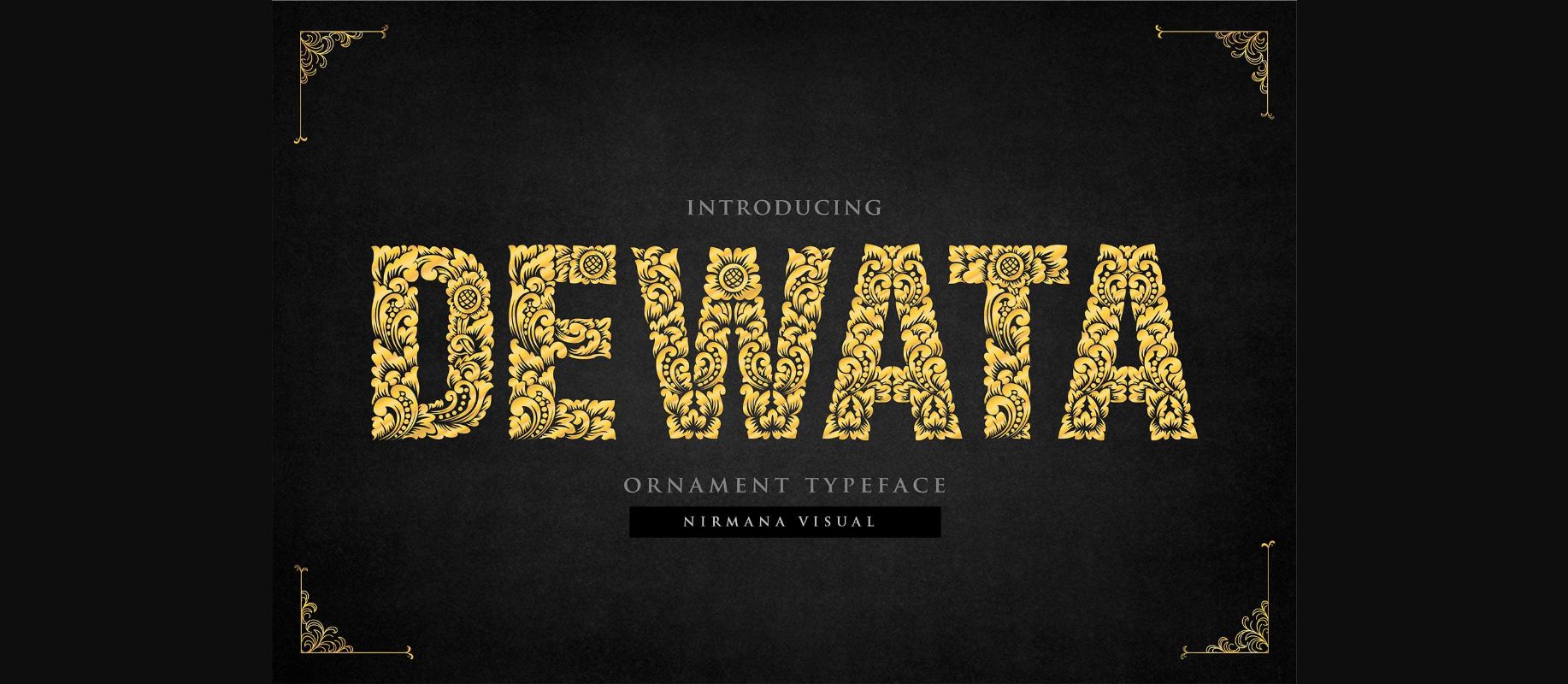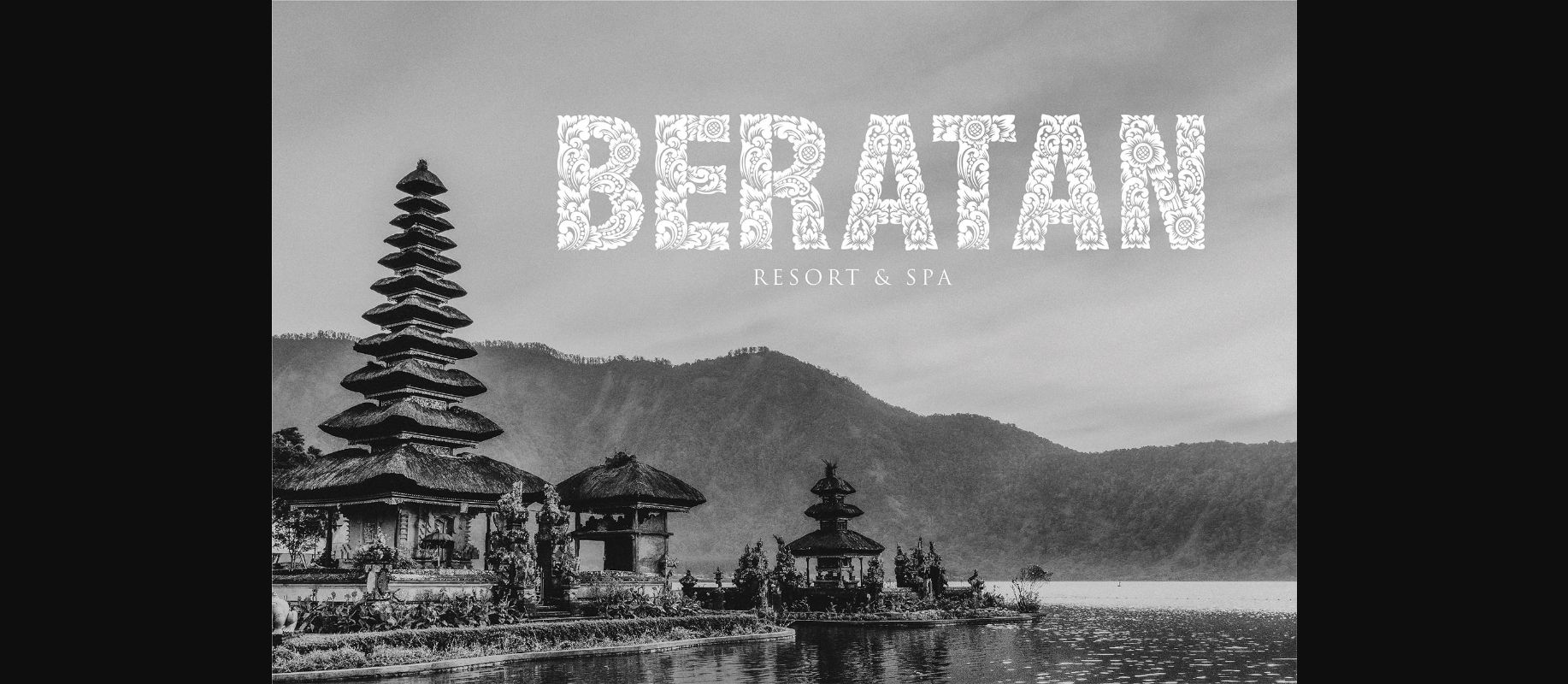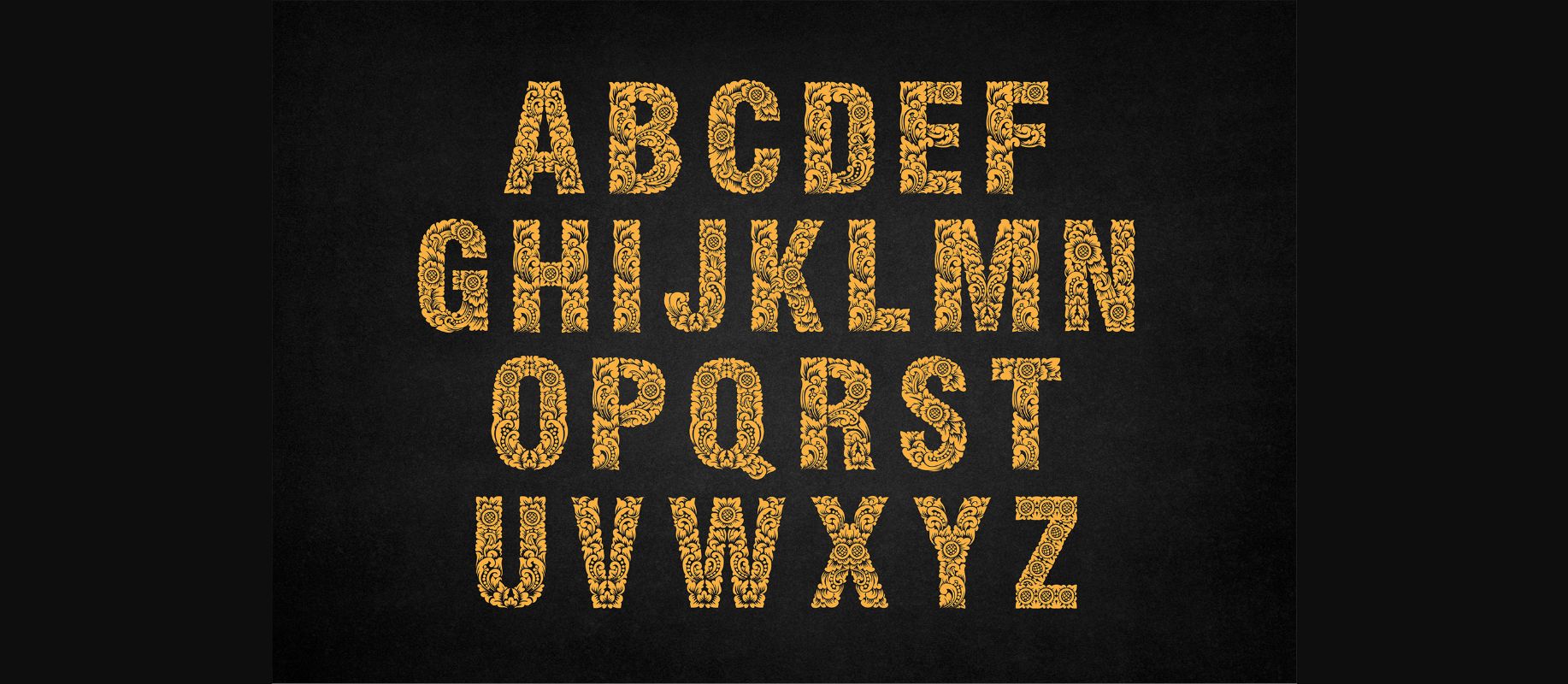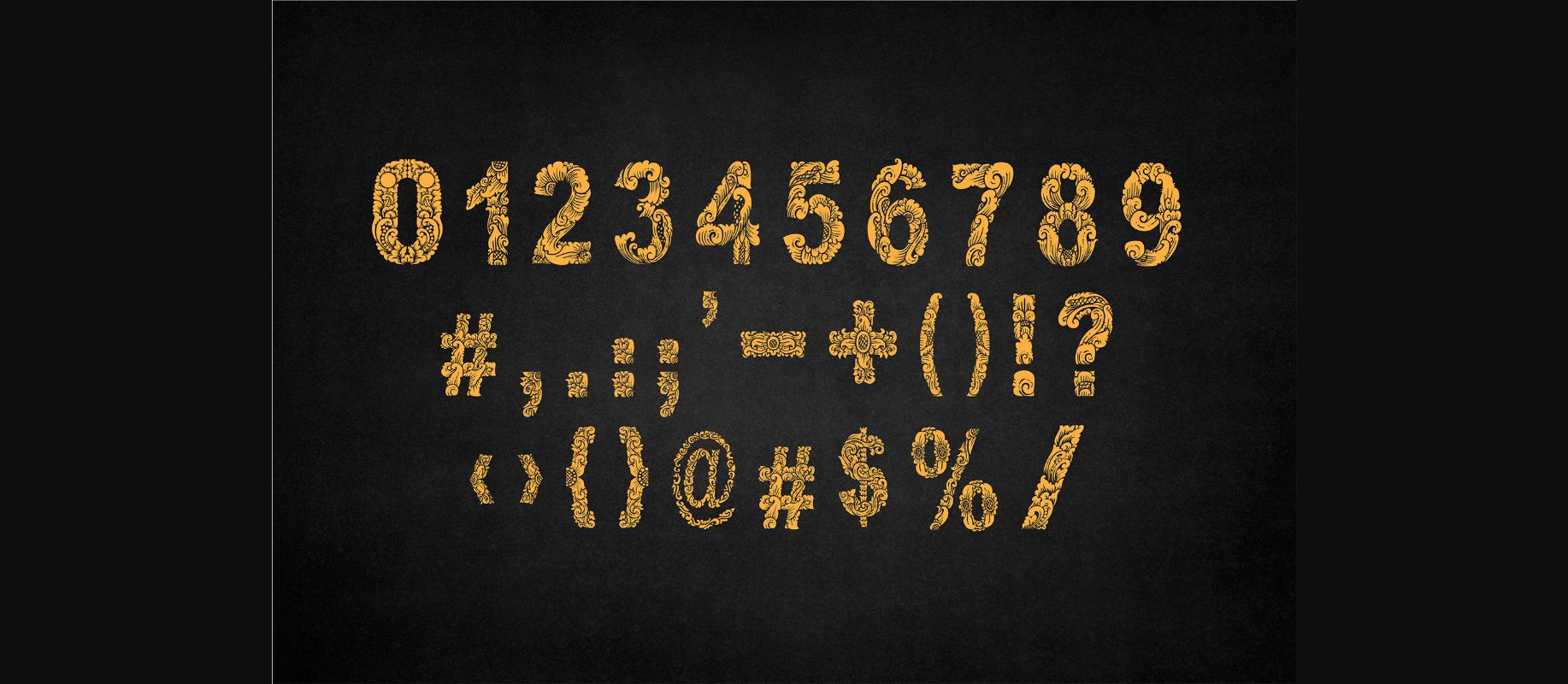
About Dewata Font
Dewata is an incredibly original and beautiful decorative font. No matter the topic, this font will be an incredibly asset to your fonts’ library, as it has the potential to elevate any creation.